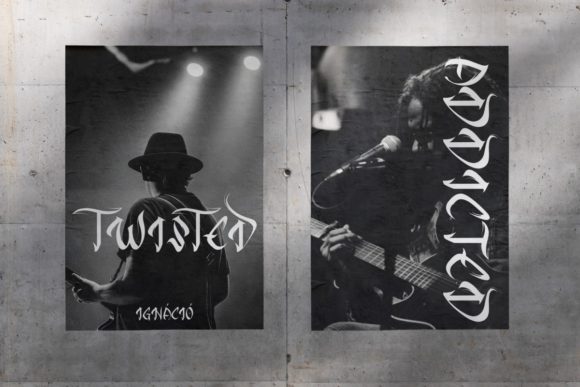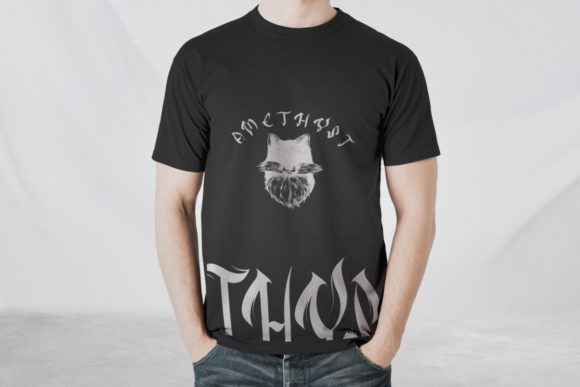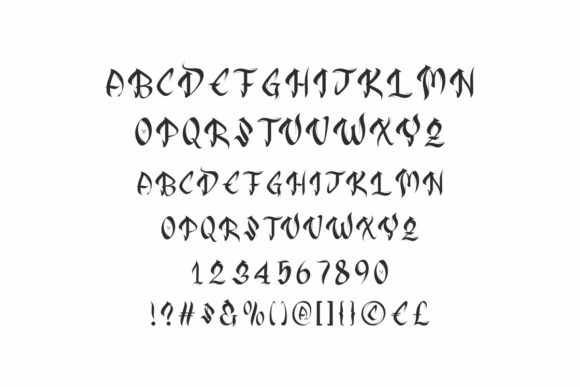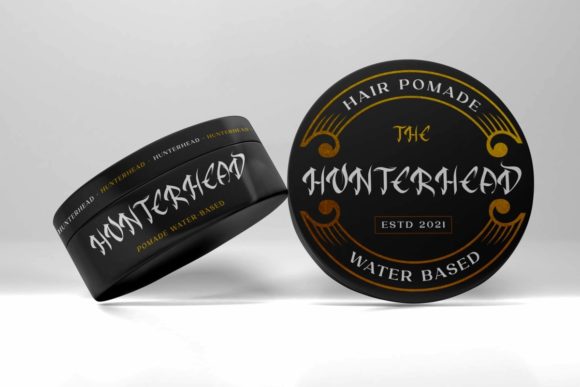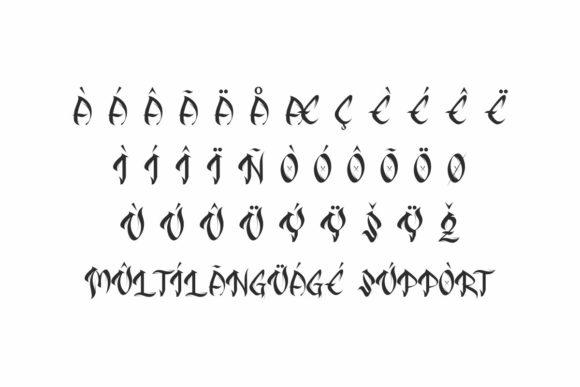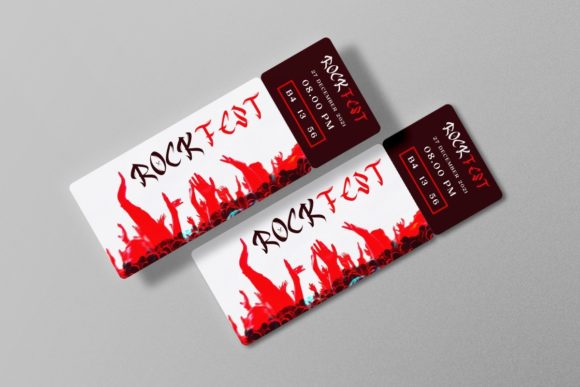
Unleash Your Creativity with Bad Rocker Font: The Ultimate Blackletter Font for Design Enthusiasts
Are you a designer, crafty enthusiast, or simply someone who loves to experiment with typography? Look no further! Introducing Bad Rocker Font, a cool and assertive blackletter font that’s sure to add a touch of rock star style to your projects. With its bold and edgy design, Bad Rocker is perfect for creating stunning headings, logos, branding designs, quotes, products, and more!
What Makes Bad Rocker Font So Special?
Bad Rocker Font is not just another ordinary font. Its unique design and features make it stand out from the rest. Here are some of the key characteristics that make Bad Rocker a must-have for designers and crafters:
- Rock Star Style: Bad Rocker Font boasts a bold and edgy design that’s reminiscent of rock star typography. Its letters are carefully crafted to give your projects a cool and assertive look that’s sure to grab attention.
- Versatile: Bad Rocker Font is perfect for a wide range of projects, including headings, logos, branding design, quotes, products, and more. Its versatility makes it a great addition to any designer’s toolkit.
The Benefits of Using Bad Rocker Font
So, why should you choose Bad Rocker Font for your design projects? Here are just a few benefits of using this amazing font:
- Adds a Touch of Edginess: Bad Rocker Font adds a touch of edginess and coolness to your designs, making them stand out from the crowd.
- Saves Time: Bad Rocker Font comes with a range of glyphs and swashes, saving you time and effort in creating custom designs.
- Perfect for Branding: Bad Rocker Font is perfect for creating brand identities, including logos, packaging, and advertising materials.
How to Use Bad Rocker Font in Your Designs
Using Bad Rocker Font in your designs is easy. Here are a few tips to get you started:
- Headings and Titles: Use Bad Rocker Font to create bold and eye-catching headings and titles that grab attention.
- Logos and Branding: Create stunning logos and branding designs with Bad Rocker Font’s unique and edgy style.
- Quotes and Sayings: Use Bad Rocker Font to add a touch of coolness to quotes and sayings, making them perfect for social media posts and graphics.
- Products and Packaging: Add a touch of edginess to your product designs and packaging with Bad Rocker Font.